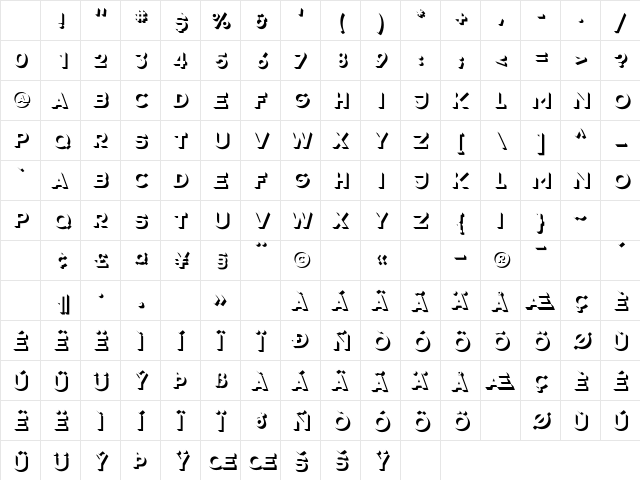
P22Bayer-Shadow Roman
Design Context for P22Bayer-Shadow
P22Bayer-Shadow is built around its visual character rather than neutral utility - its distinctive forms are designed to make an impression at display sizes.
Font Pairing: Pair with a clean neutral sans-serif for body copy to let P22Bayer-Shadow's character lead without overwhelming the composition.
Pro Tip: Use P22Bayer-Shadow exclusively at display sizes - it was designed to be seen, not read at length. Let a neutral companion handle body copy.